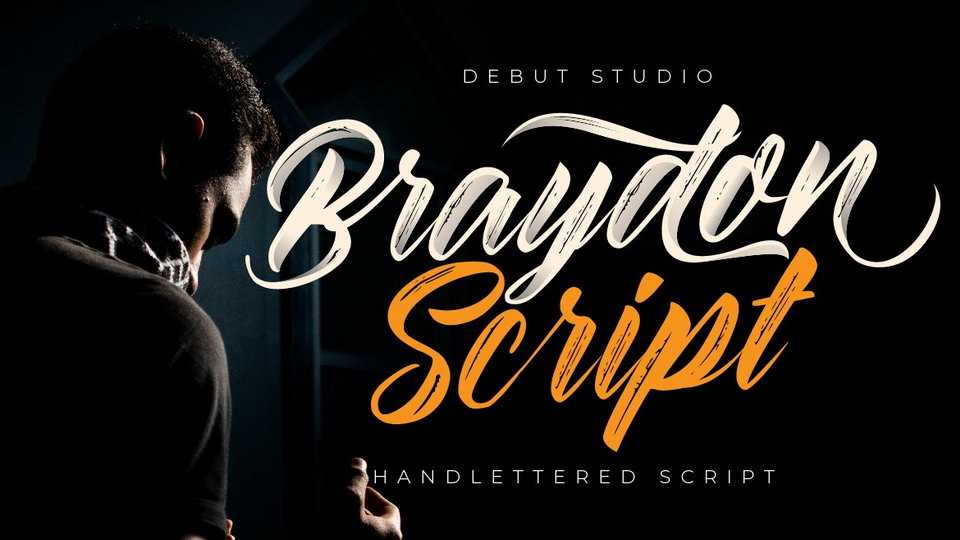
Download Braydon Script font, a classy hand lettered typeface with a vintage feel. Braydon Script is perfect for design purposes such as logo design, t-shirt, heading, magazine, newspaper, website, to design quotations, posters, business cards, and others.